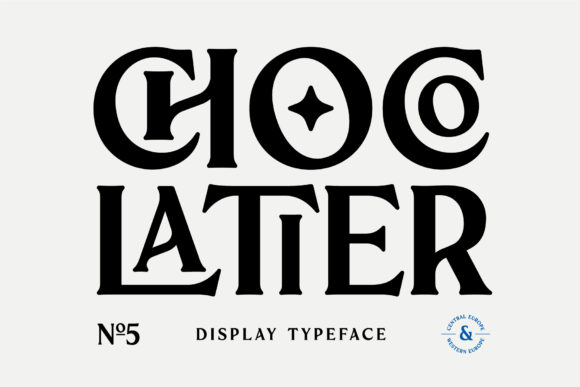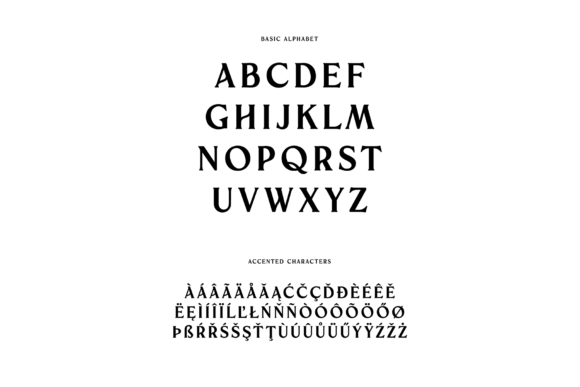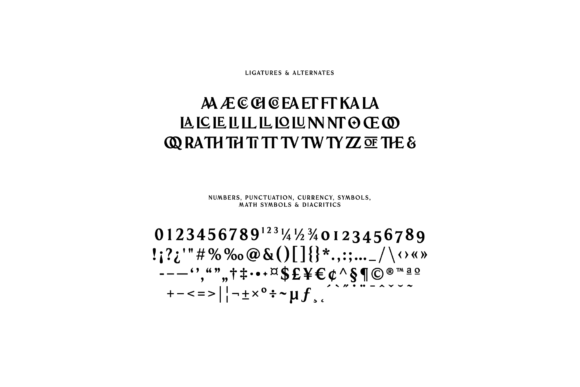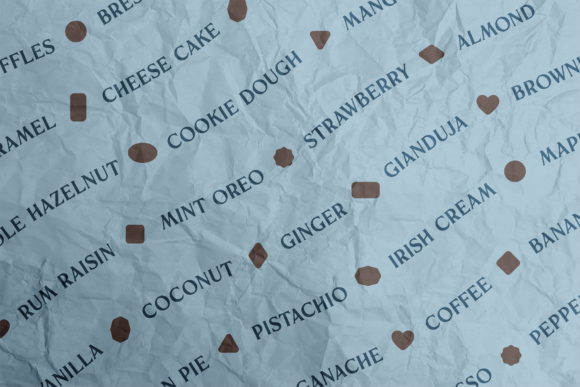
Chocolatier Font
About the Chocolatier Font
Experience the unique personality of Chocolatier Font, a font designed for impact. Chocolatier is an all caps display font with soft edges. It is ideal for headlines, headers, logos, labels, packaging, postcards, presentations, magazines, invitations, and more.
Chocolatier Font Usage Examples
Chocolatier Font Example